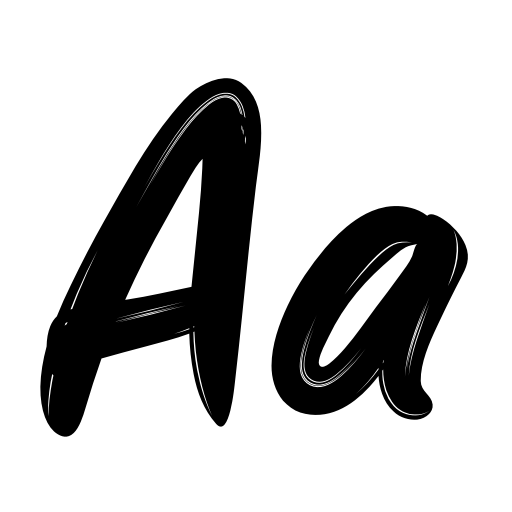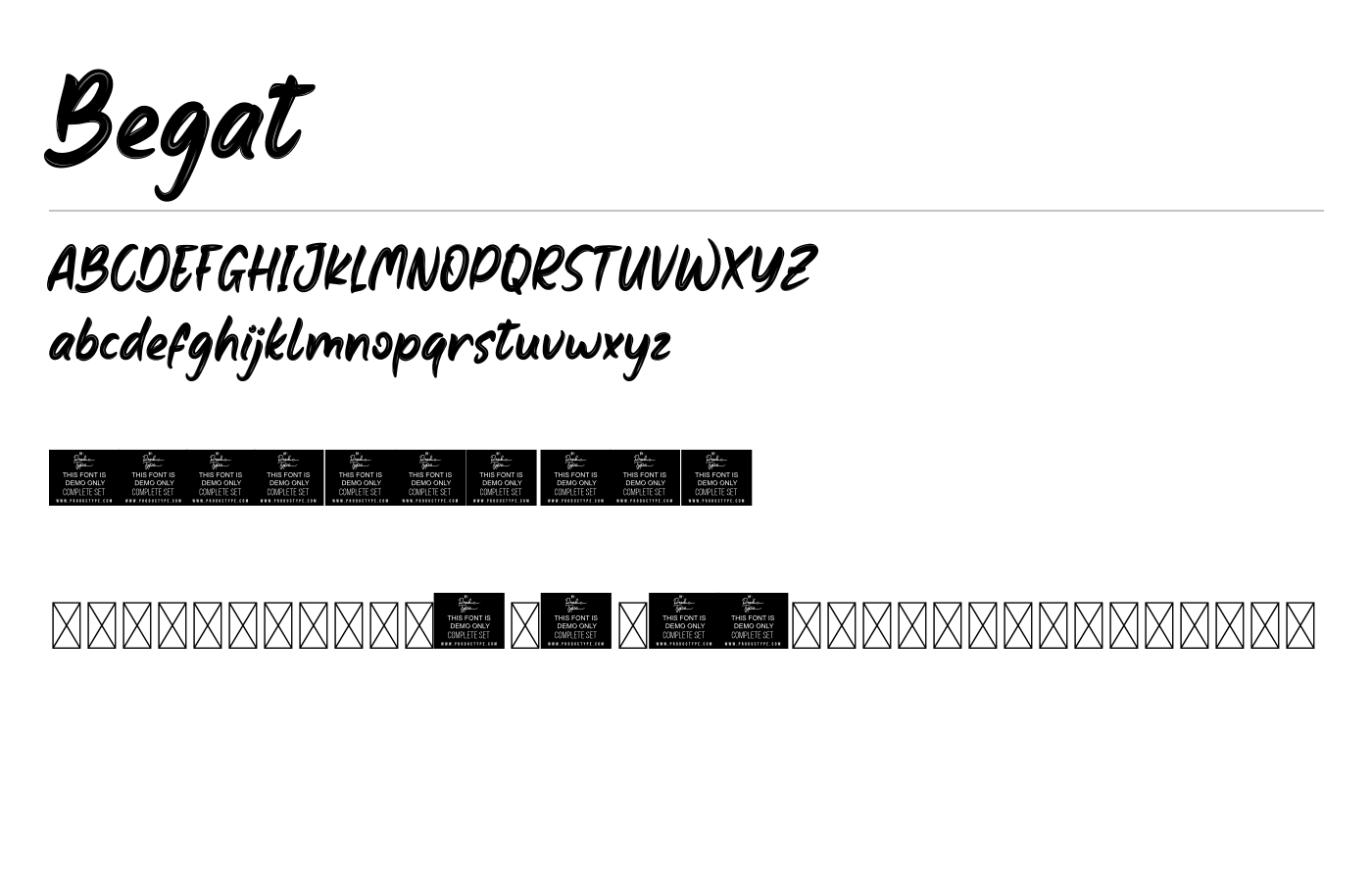
Begat is a lively and informal script font featuring smooth, rounded strokes and a friendly handwritten feel. Its medium weight and casual letterforms make it ideal for creative projects, branding, and invitations that seek a warm, approachable personality. This font works best in headlines or display uses where a personal, dynamic touch is desired.
Begat Font
About Begat Font